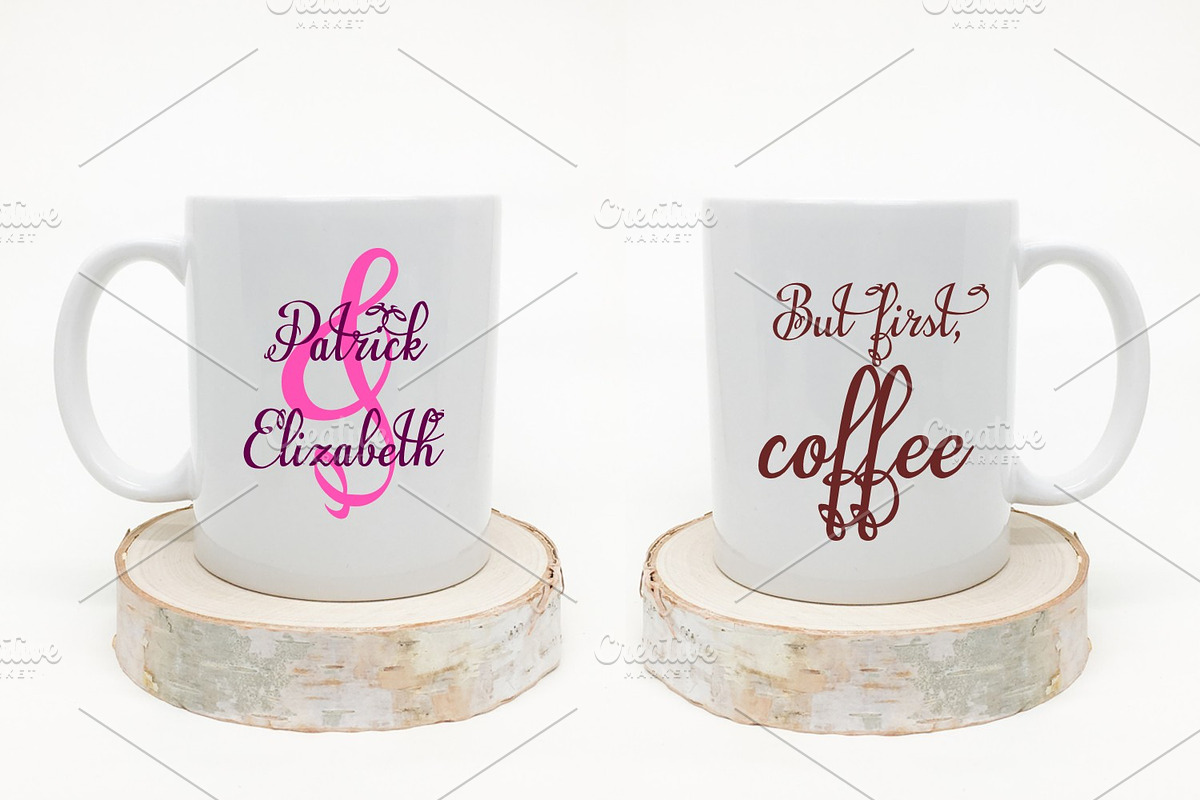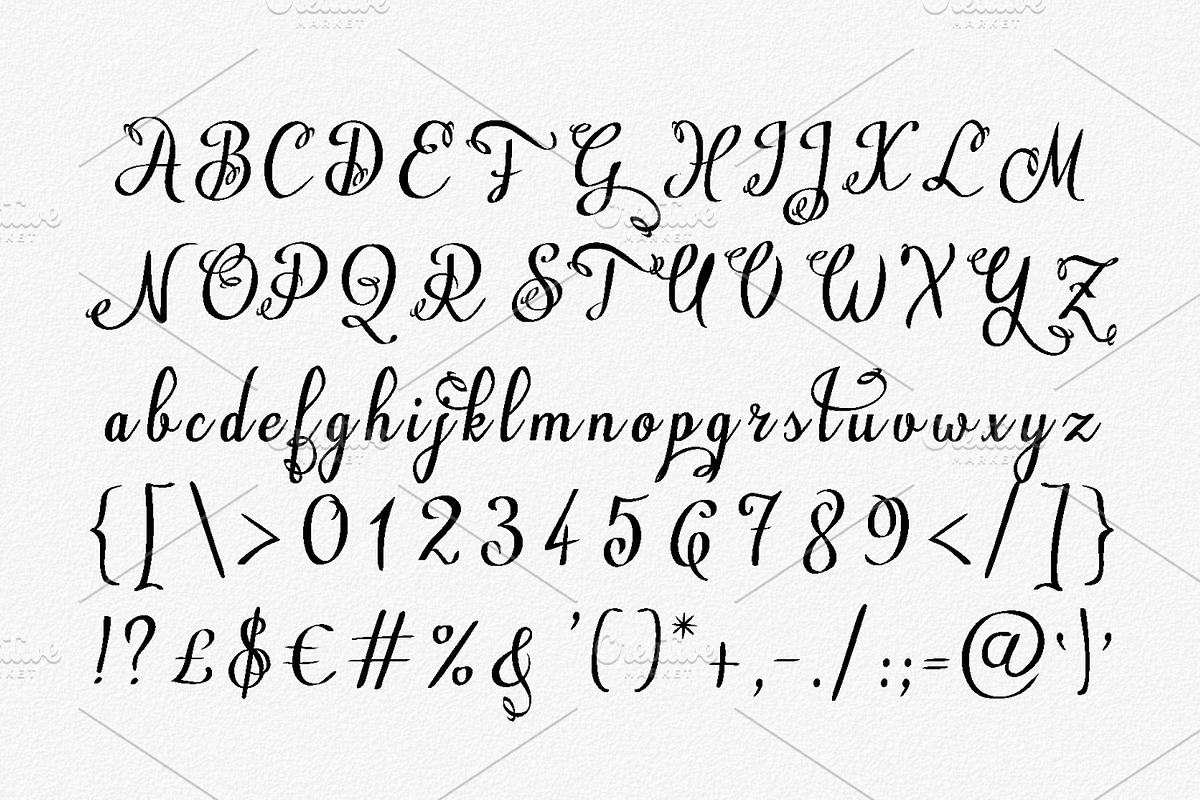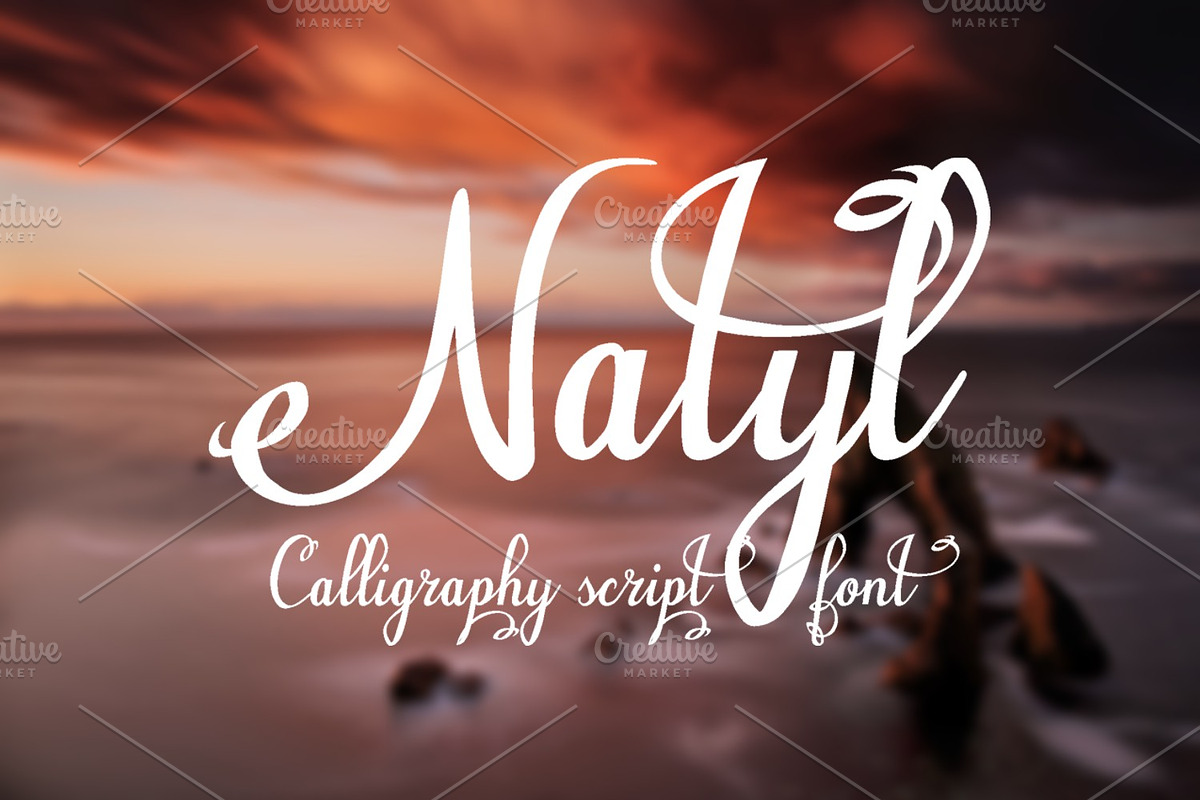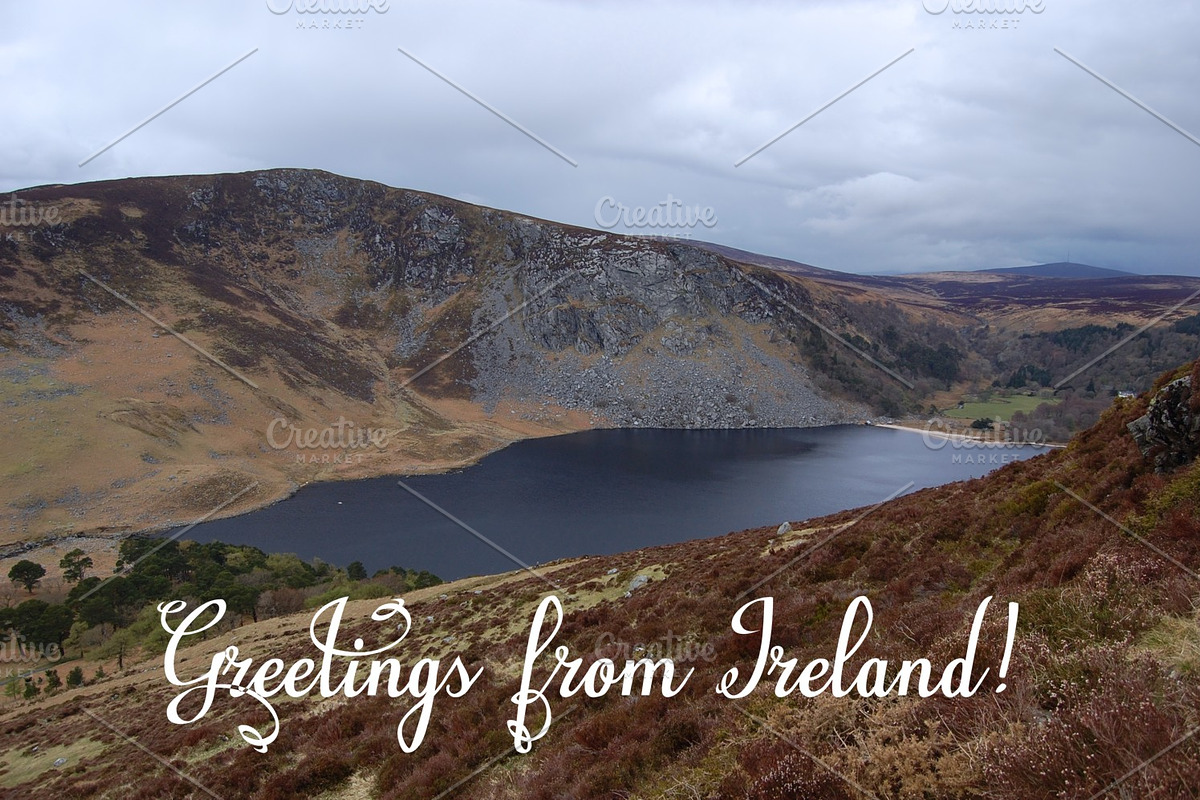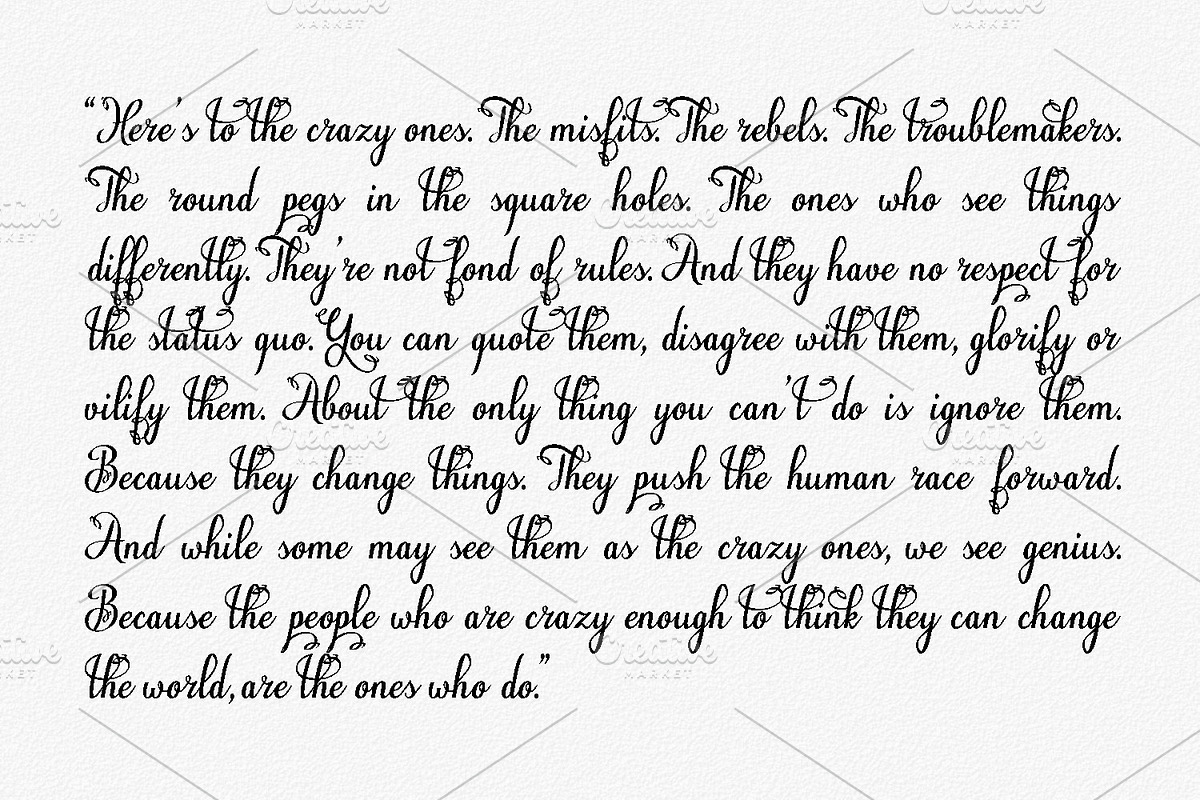
Natyl
Introducing Natyl calligraphy typeface.
Great for cards cards, embroidery, stamps, stencils, engraving, laser cutting and more!
Natyl by Digital Typeface Studio fits naturally into Branding, posters, packaging, typography.